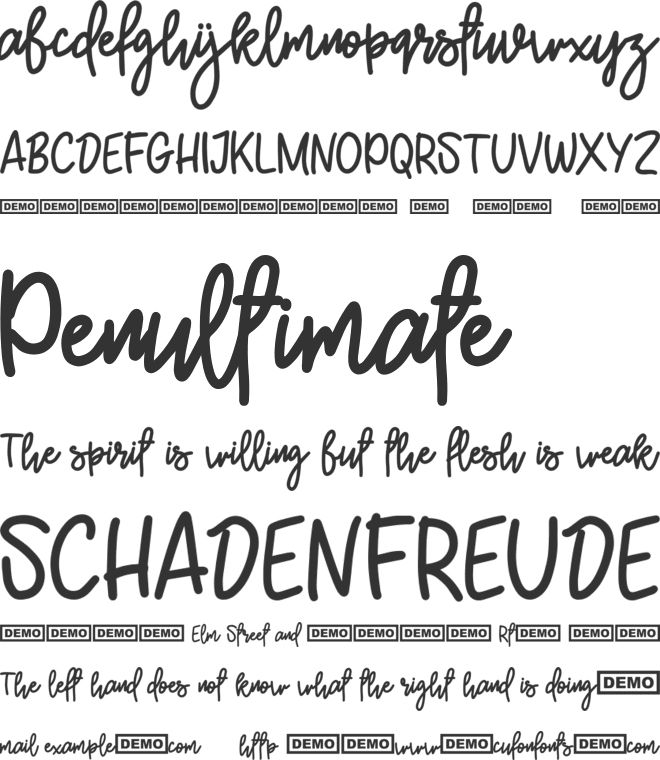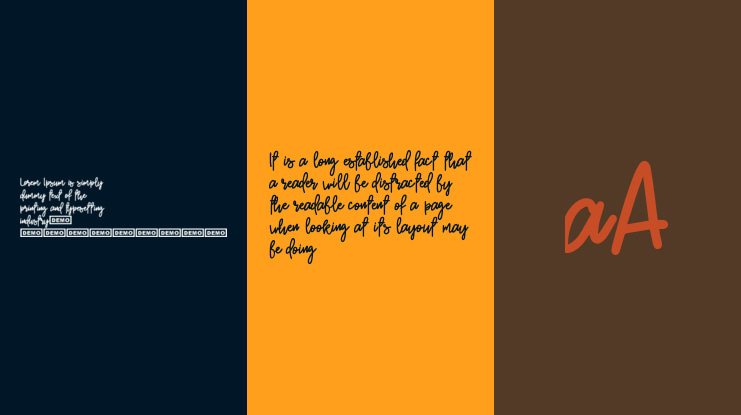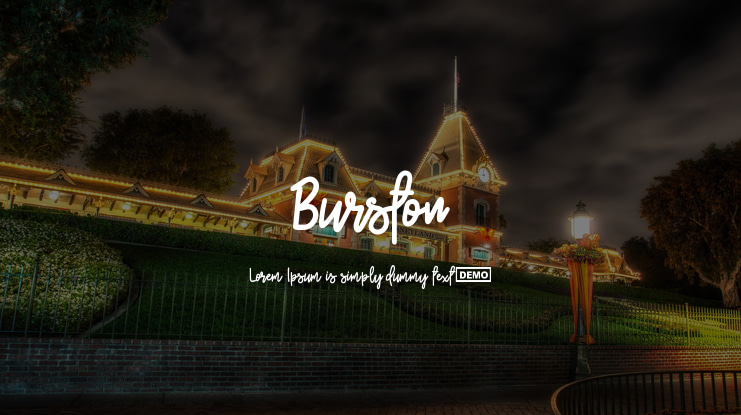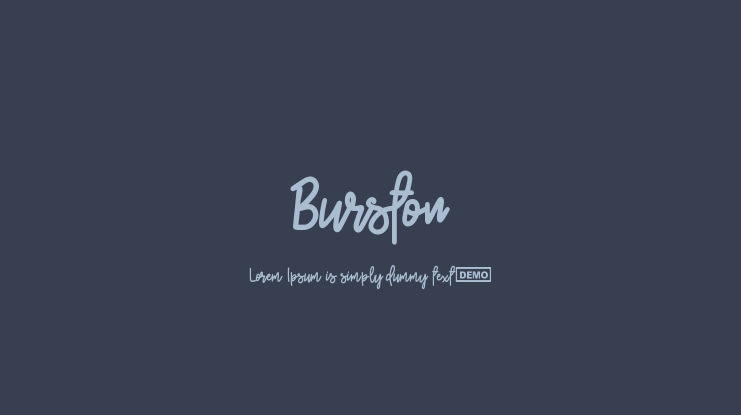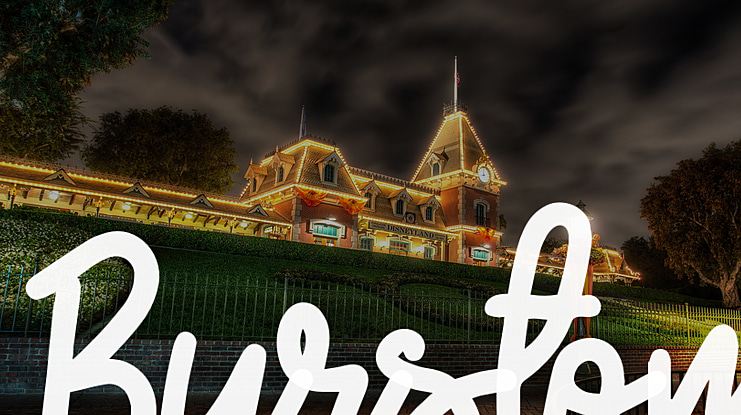
Burston Font
Burston will help you to decorate any of your projects in a pleasant hand-written style. It is easy to read and perfect for any design. Full version of Burston comes with uppercase, lowercase, standard punctuation and special letters for most of the European languages.